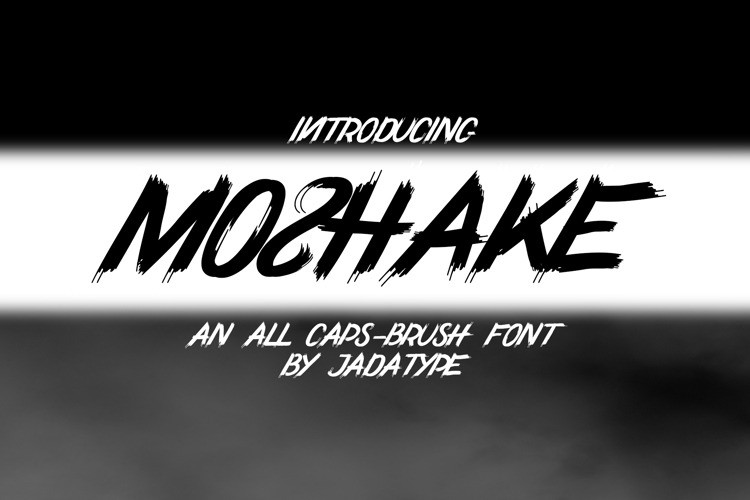
Moshake Font
Moshake Brush Font, It can easily be matched to an incredibly large set of projects, so add it to your creative ideas and notice how it makes them stand out!